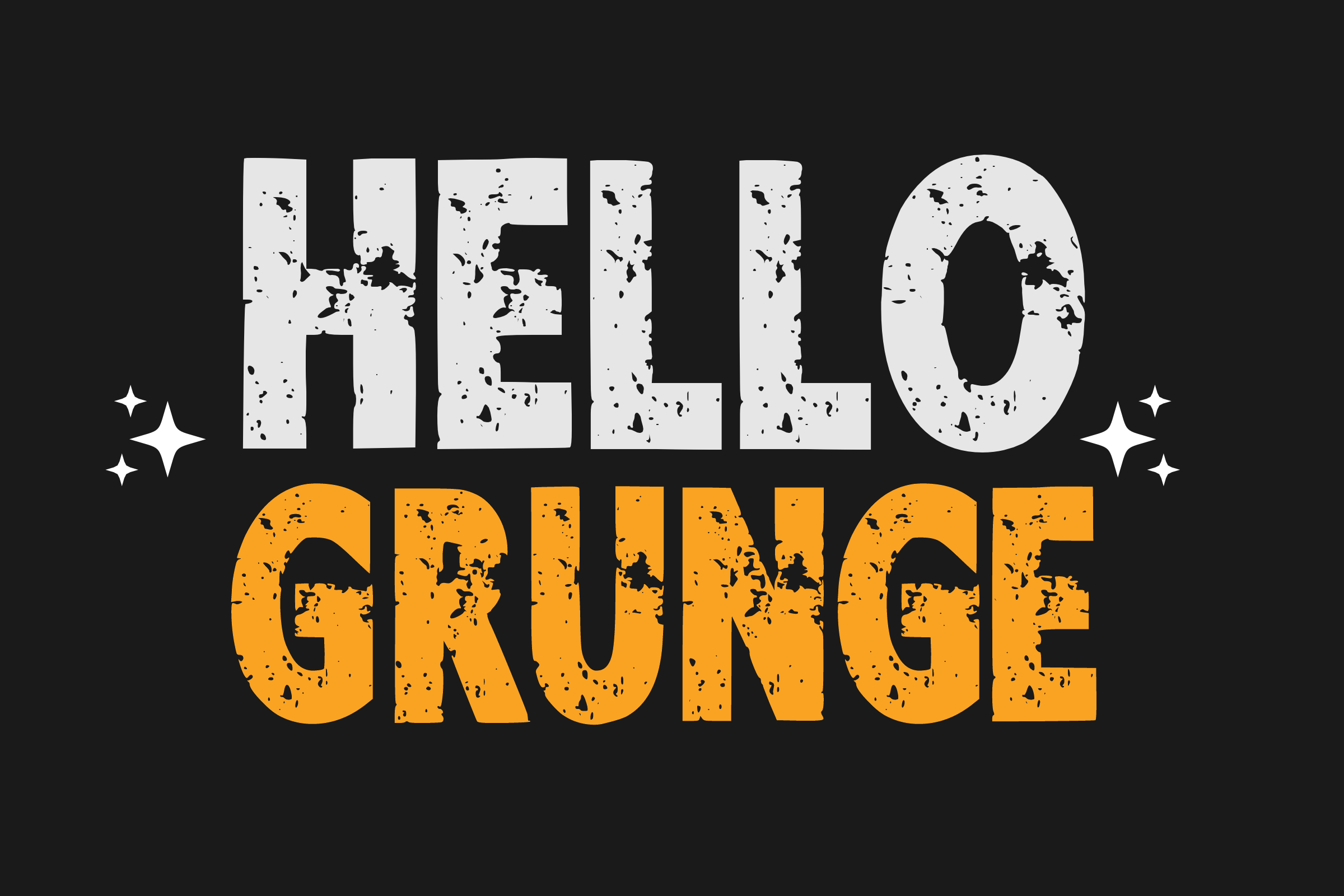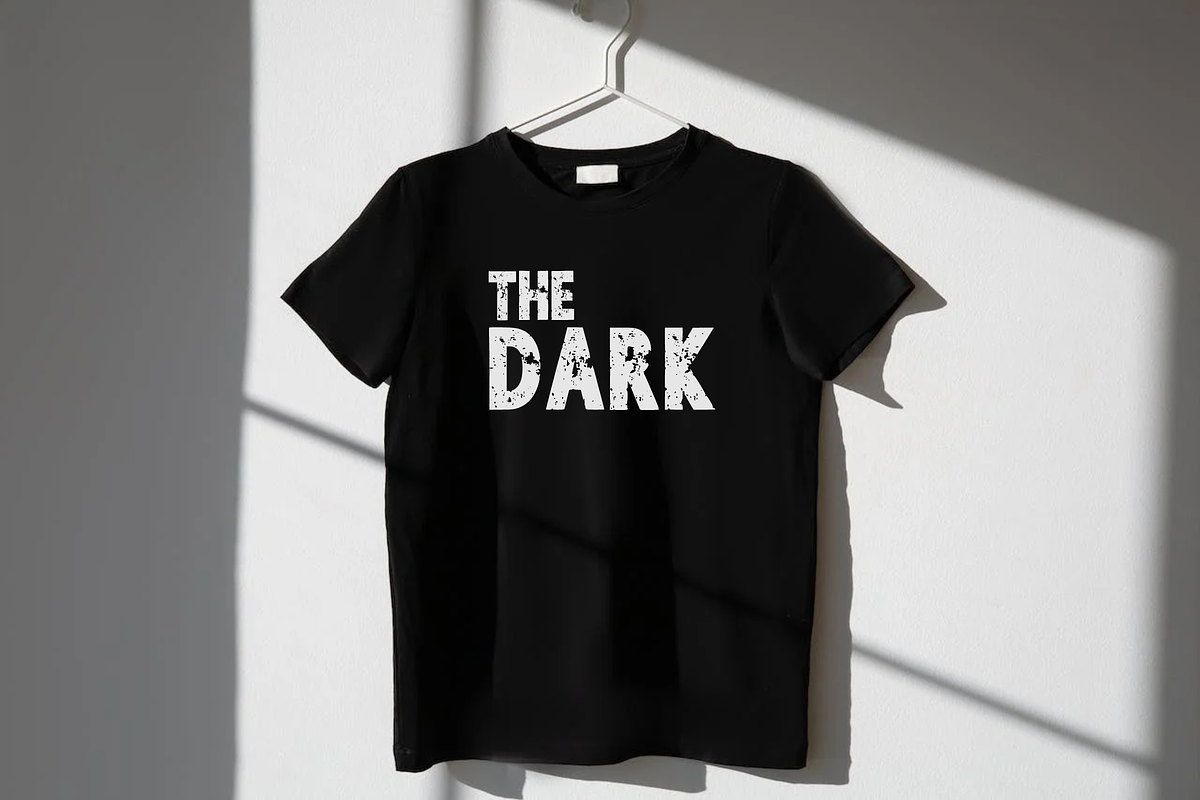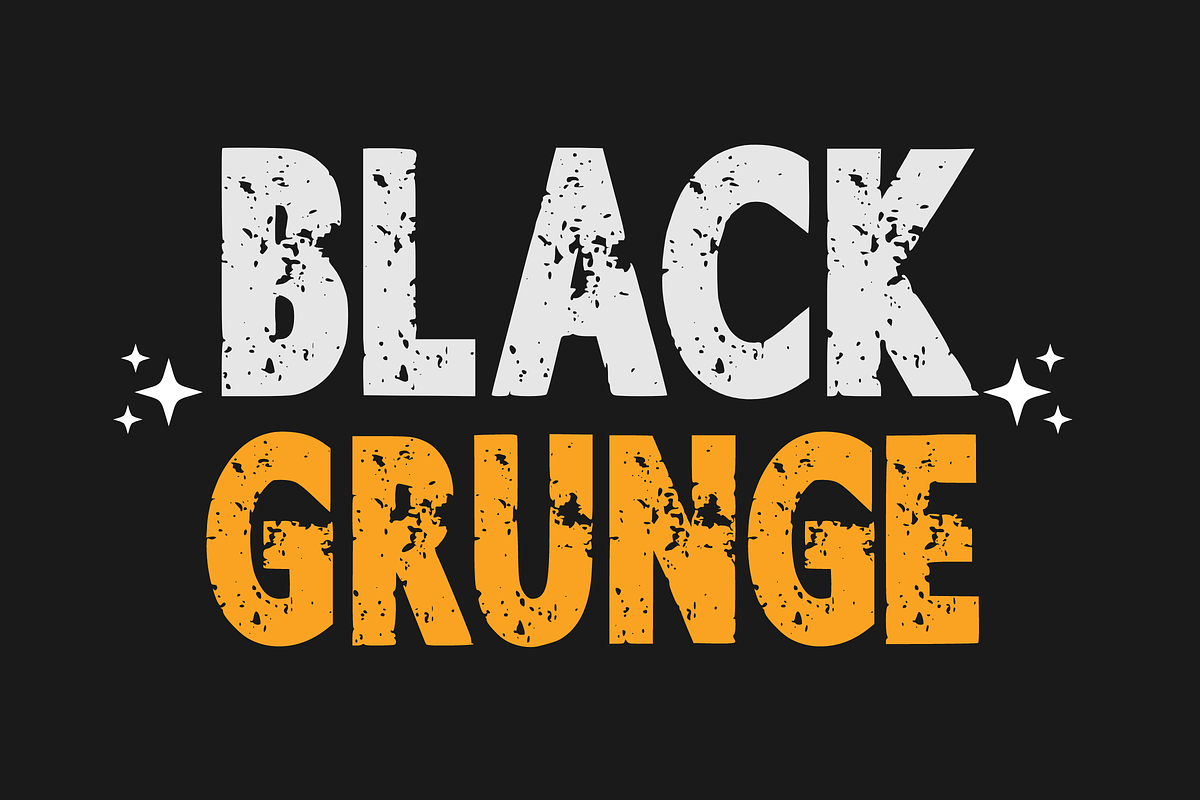
Hello Grunge - Grunge Font Types
Experience the bold, gritty charm of “Hello Grunge”! This contemporary typeface brims with speckled texture, giving every single word a robust and easily recognizable character. Tailored for lovers of unique sublimation designs – imagine it on your t-shirts, mugs, tote bags, and in animations. It paints animated comic titles with an edgy brush, making your projects stand out. Get inspired with “Hello Grunge” and let your imagination run wild!